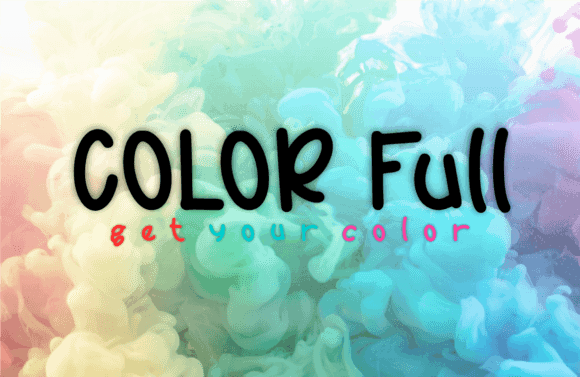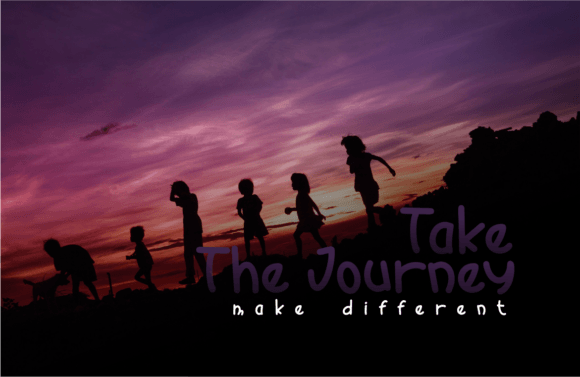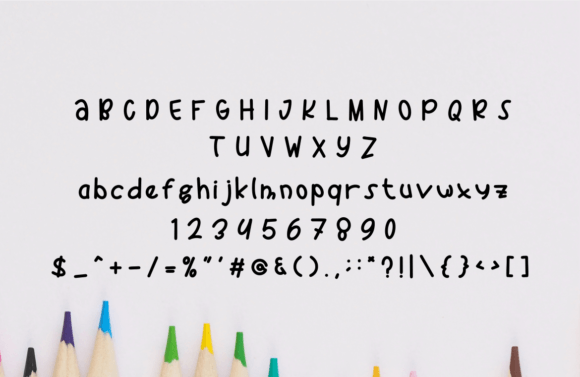
Introducing Boom Big Zoo Font: A Fun and Engaging Typeface for Kids
Are you a designer, crafty enthusiast, or business owner looking for a unique and playful font to promote your products or services to kids? Look no further than the Boom Big Zoo Font! Our team created this fun and engaging typeface with the aim of helping you achieve your promotional goals, whether personal or commercial.
The Inspiration Behind Boom Big Zoo Font
We understand that kids are a special audience, and they require a unique approach to grab their attention. With Boom Big Zoo Font, we aimed to create a typeface that would not only appeal to kids but also inspire creativity and fun. Our goal was to design a font that would be versatile enough to be used in various aspects of product promotion, from branding and advertising to educational materials and crafts.
Key Features of Boom Big Zoo Font
So, what makes Boom Big Zoo Font so special? Here are some of its key features:
- Playful and Fun Design: Our font features bold, colorful, and playful letters that are sure to capture the attention of kids.
- Highly Versatile: Boom Big Zoo Font can be used in a variety of contexts, from digital designs to print materials, and even crafts.
- Easily Readable: Despite its playful design, our font is easy to read, making it perfect for use in educational materials, signage, and more.
- Customizable: With Boom Big Zoo Font, you can easily customize the font size, color, and style to fit your design needs.
Use Cases for Boom Big Zoo Font
So, how can you use Boom Big Zoo Font to achieve your promotional goals? Here are some use cases to get you started:
- Branding and Advertising: Use Boom Big Zoo Font to create eye-catching logos, posters, and advertisements that will appeal to kids.
- Educational Materials: Our font is perfect for creating engaging educational materials, such as worksheets, activity sheets, and flashcards.
- Crafts and DIY Projects: Boom Big Zoo Font can be used to create fun and colorful craft projects, such as signs, banners, and decorations.
- Digital Designs: Use our font to create engaging digital designs, such as social media graphics, videos, and animations.
Why Choose Boom Big Zoo Font?
With so many fonts available, why choose Boom Big Zoo Font? Here are just a few reasons:
- Unique Design: Our font features a unique and playful design that will help you stand out from the crowd.
- Time-Saving: With Boom Big Zoo Font, you can save time and effort by using a pre-designed font that is easy to use and customize.
- Effective Communication: Our font is designed to communicate effectively with kids, helping you achieve your promotional goals.